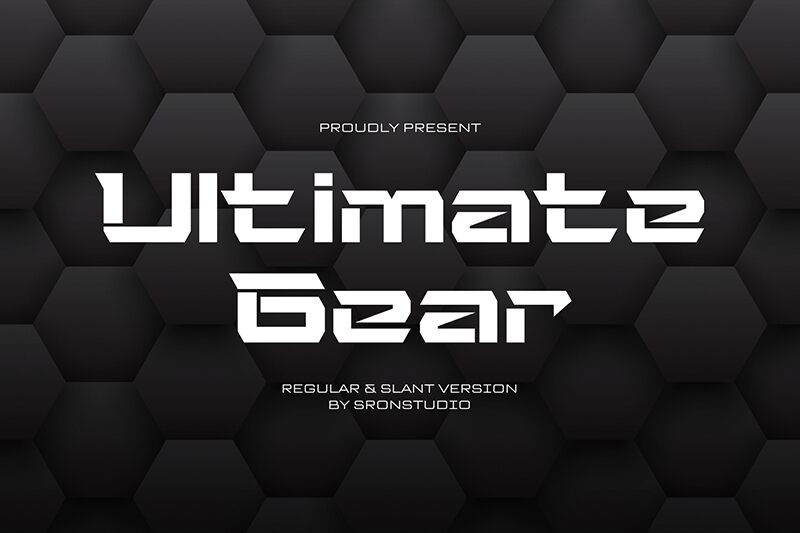
Ultimate Gear Slant
Ultimate Gear Slant font by Sronstudio is a futuristic display font that expresses a delicate dynamic harmony of industrial and modern. Its expanded width, angular cuts, and geometric shapes give it a forward-looking appearance capable of catching everyone’s attention!
The font is well-designed for branding, posters, book covers, packaging design, magazines, album art design, newspaper ads, web pages headings and titles and more. Feel free to use this valuable resource in your next big project!